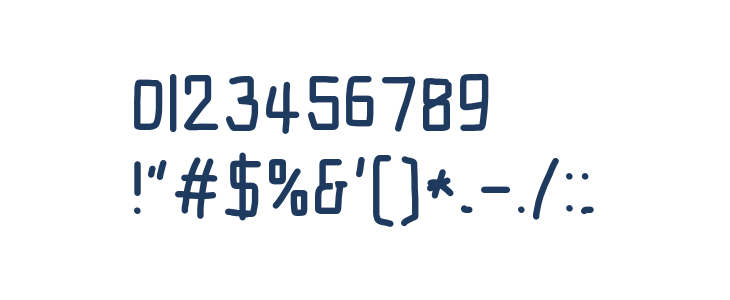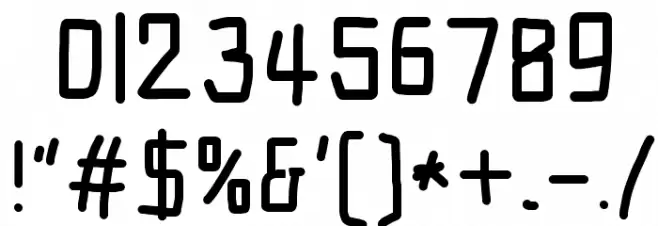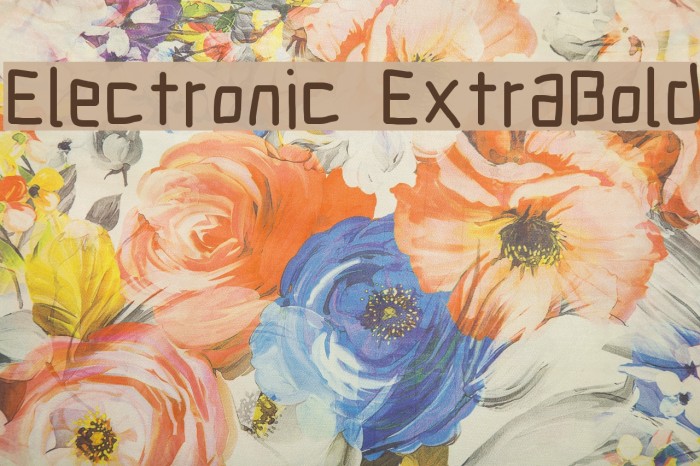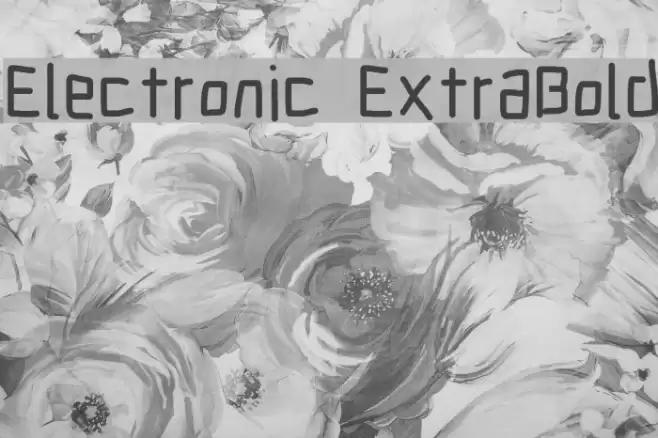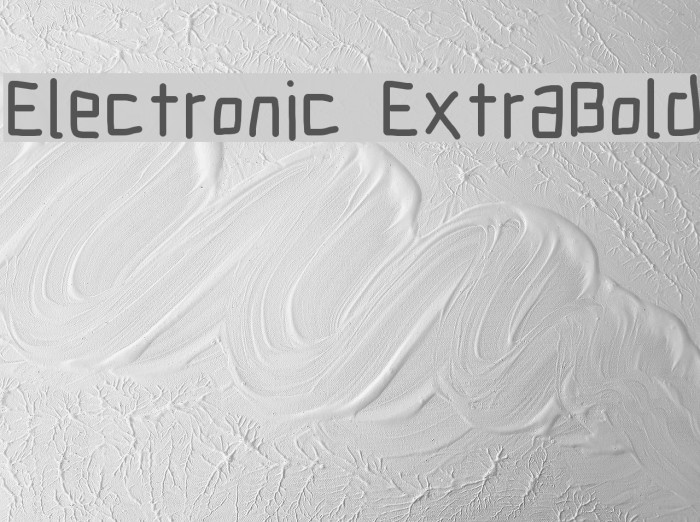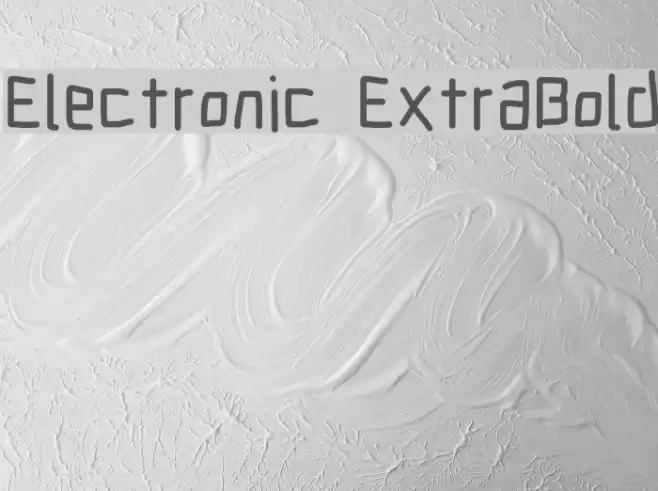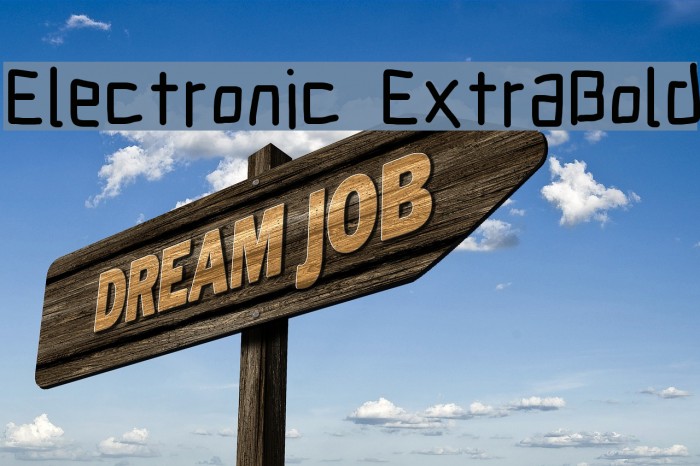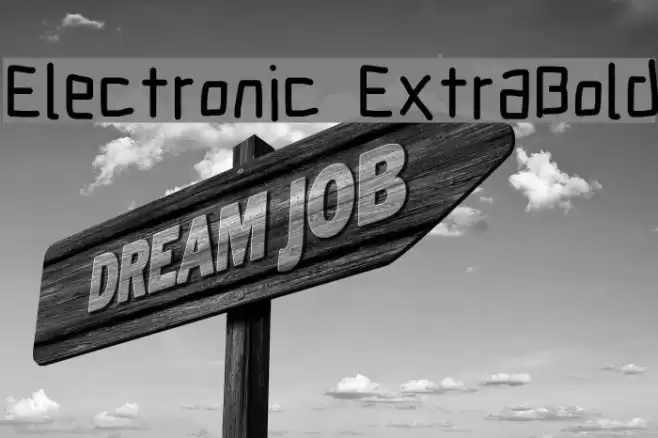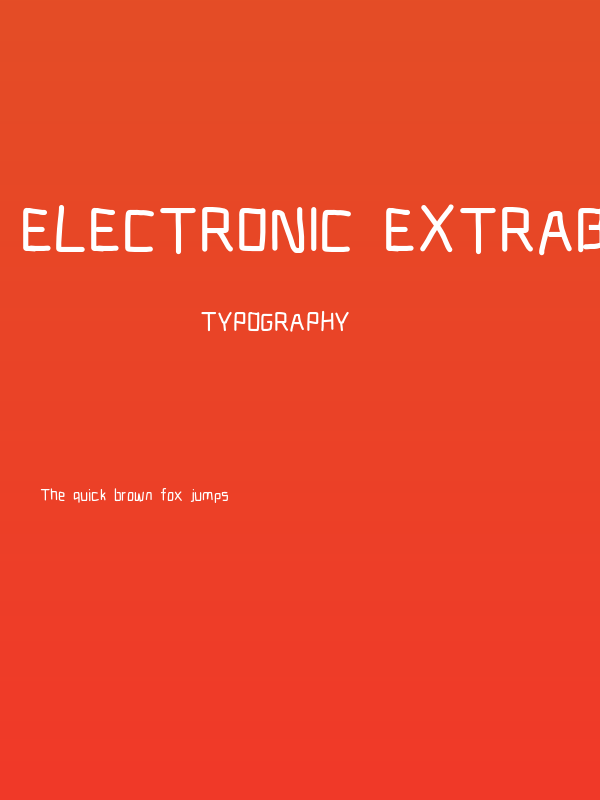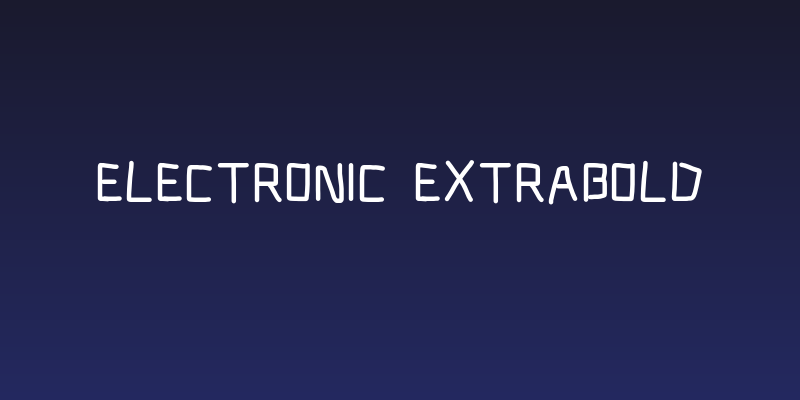
Electronic ExtraBold Font
Electronic ExtraBold Description
This font features a bold, geometric style with a distinctly modern and digital aesthetic. The characters are formed with consistent stroke widths, giving it a uniform appearance. The uppercase letters are angular and slightly condensed, while the lowercase letters maintain a similar structure with a slightly more rounded form. The numerals are clear and legible, matching the overall style of the alphabet. Special characters are designed to complement the alphanumeric characters, maintaining the same bold and structured look. This font is ideal for projects that require a futuristic or tech-inspired feel.